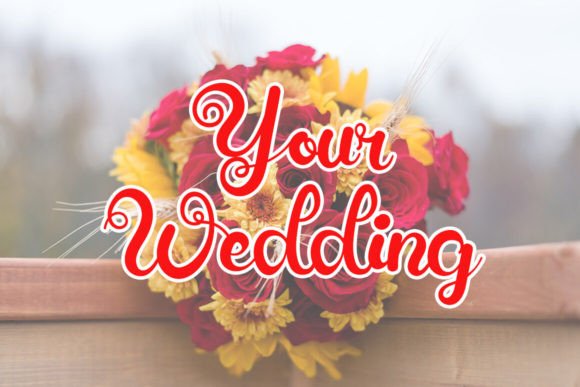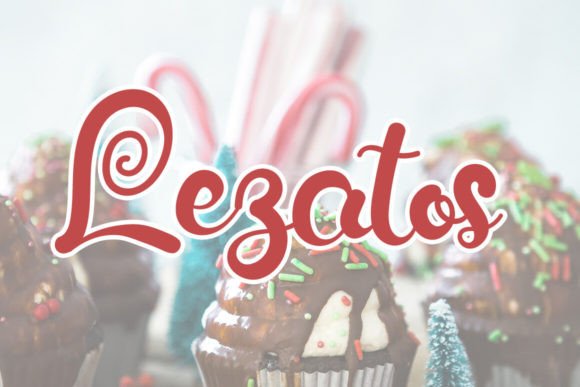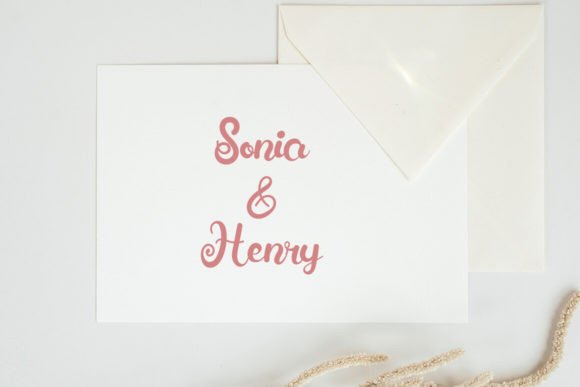
Introduction to Benzima Font
Introducing Benzima, a stunning script font that is sure to add elegance and sophistication to your designs.
This beautiful typeface features intricate, flowing lines that emulate the natural movement of handwriting, making it the perfect choice for creating unique and personalized designs Whether you’re working on a wedding invitation, a branding project, or a social media post, Benzima will help you capture the attention of your audience and create a lasting impression.
Key Features of Benzima Font
Why Choose Benzima Font?
Benzima Font offers exceptional quality and versatility, making it a valuable addition to your design toolkit. Whether you’re creating for personal projects or commercial use, Benzima Font delivers professional results.